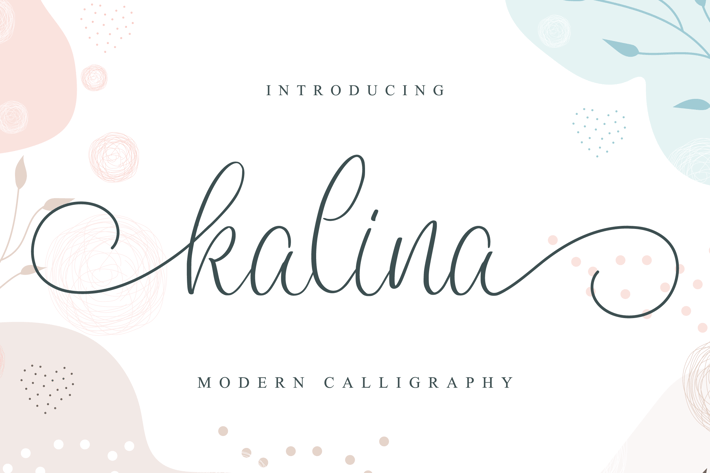
Kalina - Wedding Font
Kalina feels equally charming and elegant. It looks stunning on wedding invitations, thank you cards, quotes, greeting cards, logos, business cards and every other design which needs a customized touch.
Modern Handwritten Font
Beautiful Swash (Ending tail)
Beautiful Titling (Beginning tail)
Special Ligatures